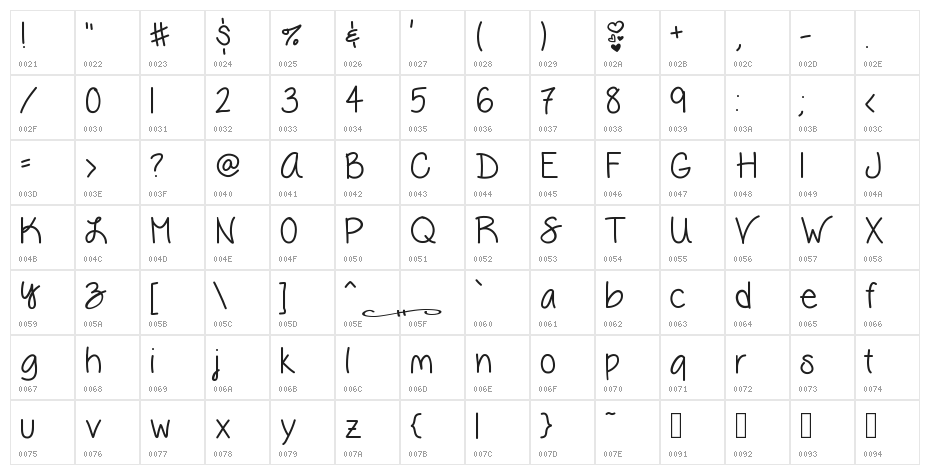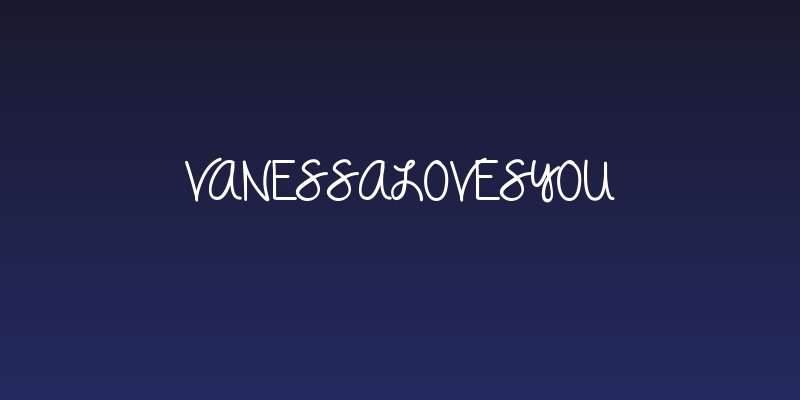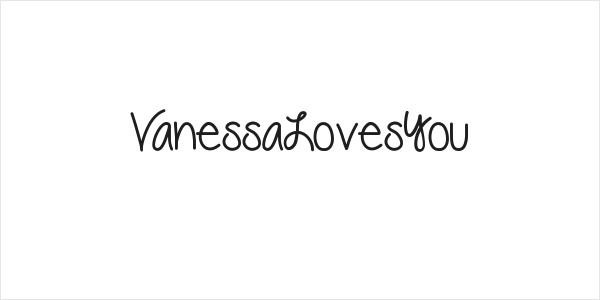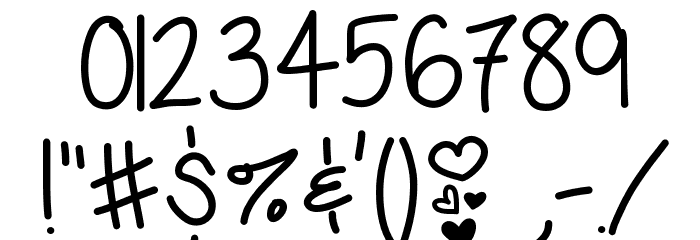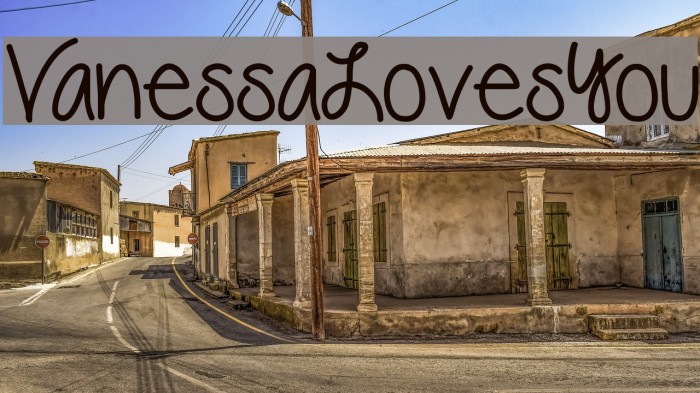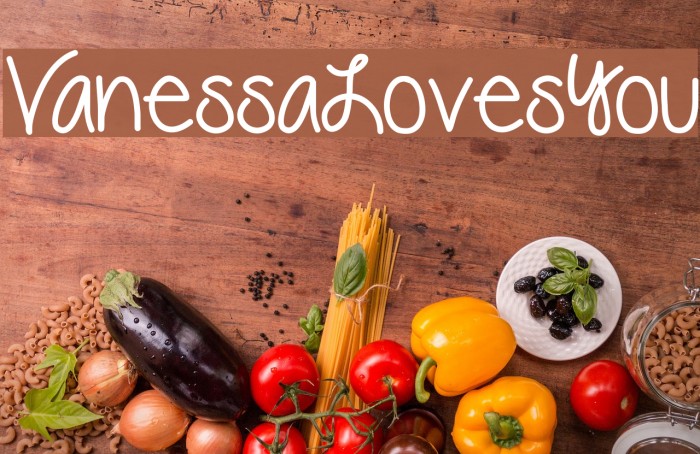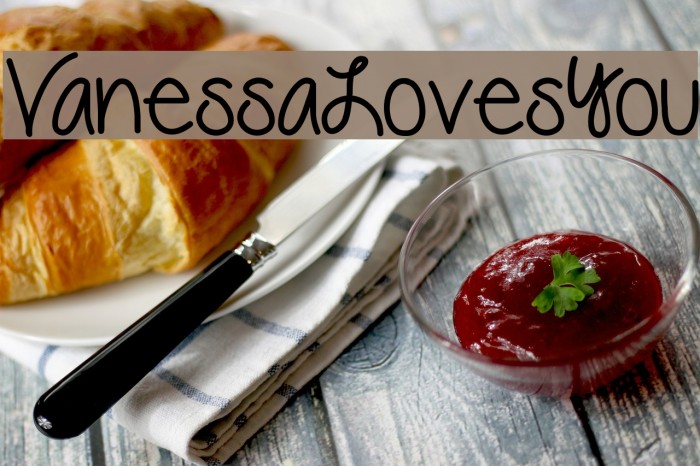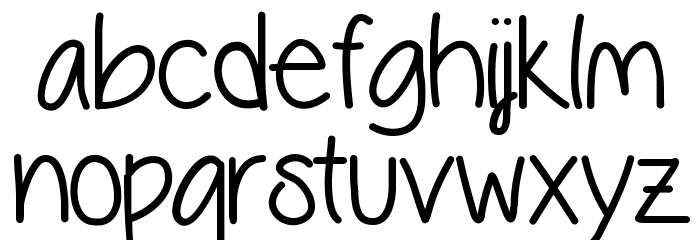
VanessaLovesYou Font
VanessaLovesYou Description
This playful and whimsical font features a handwritten style with smooth, rounded edges and a casual, friendly appearance. The letters are slightly slanted, giving a dynamic and lively feel. Uppercase and lowercase characters are distinct, with the uppercase letters being slightly larger and more pronounced. The numbers and special characters maintain the same playful aesthetic, making the font versatile for various creative projects. The overall look is approachable and informal, perfect for designs that require a personal touch.
| Overall Style | Casual |
| Use Case | Logos, Headlines, Informal Text |
| Proposed Projects | Ideal for greeting cards, children's books, playful branding, and social media graphics. |